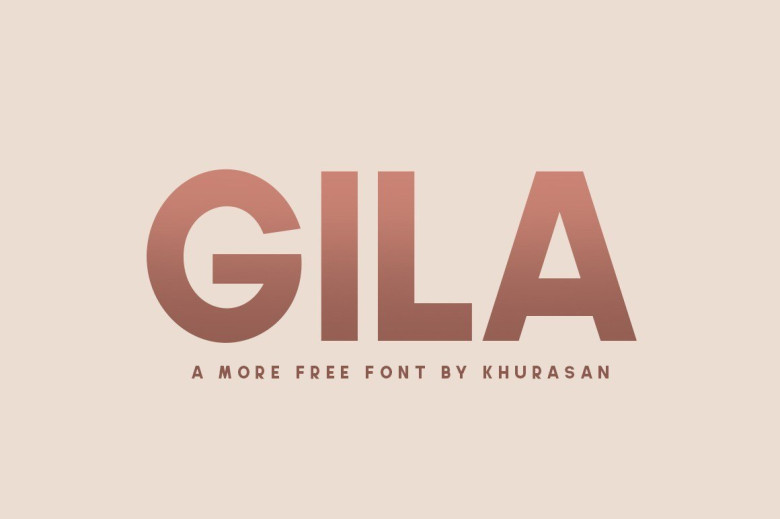
Gila Bold Sans Serif Font Family
Gila Sans Font is the condensed version of the sans serif family, but it is presented as an independent family of fonts because they can work as a single face in your design.
As a Gila Sans Font, this style is austere, functional and clear, emerged from straight lines and primary shapes. This font is free for PERSONAL AND COMMERCIAL USE.